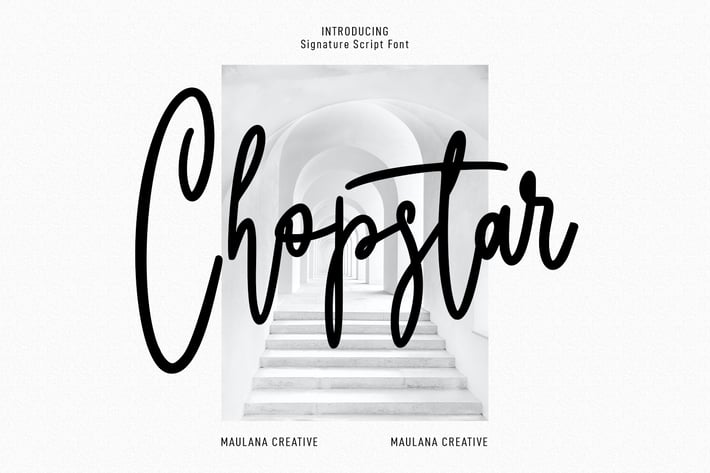
Chopstars Script Font
Chopstars is an upright casual modern script font. With light contrast stroke, fun character with a bit of ligatures and alternates. To give you an extra creative work. Chopstars font support multilingual more than 100+ language. This font is good for logo design, Social media, Movie Titles, Books Titles, a short text even a long text letter and good for your secondary text font with sans or serif. Make a stunning work with Chopstars font.